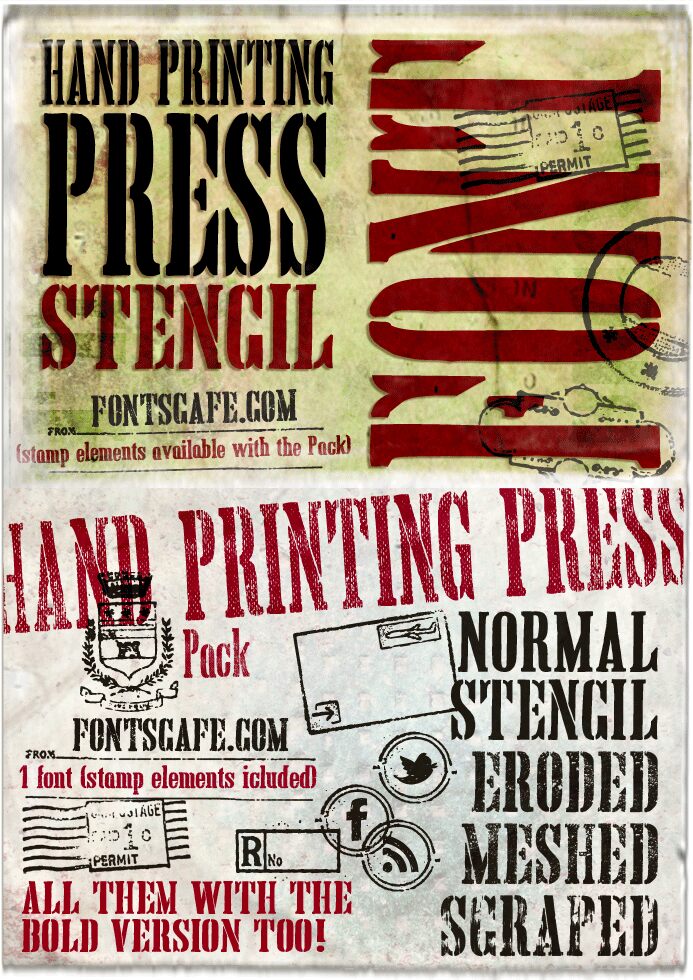
Hand Printing Press Stencil by Fontscafe is a free old-school stencil display font with the force of vintage wood type. Tall, tightly packed capitals combine broad strokes, sharp slab serifs, and narrow stencil cuts in a slightly unruly silhouette.
It can turn a title into a convincing saloon sign. That rugged period character suits whiskey packaging, western posters, and heritage merchandise. Across these uses, compressed proportions and emphatic serifs recall nineteenth-century commercial printing.